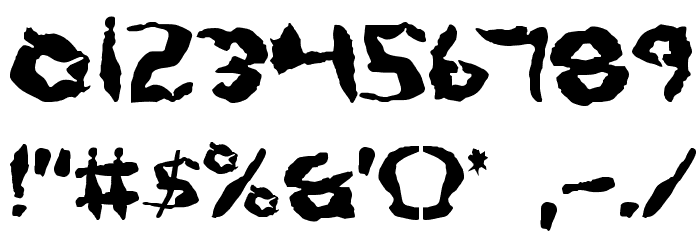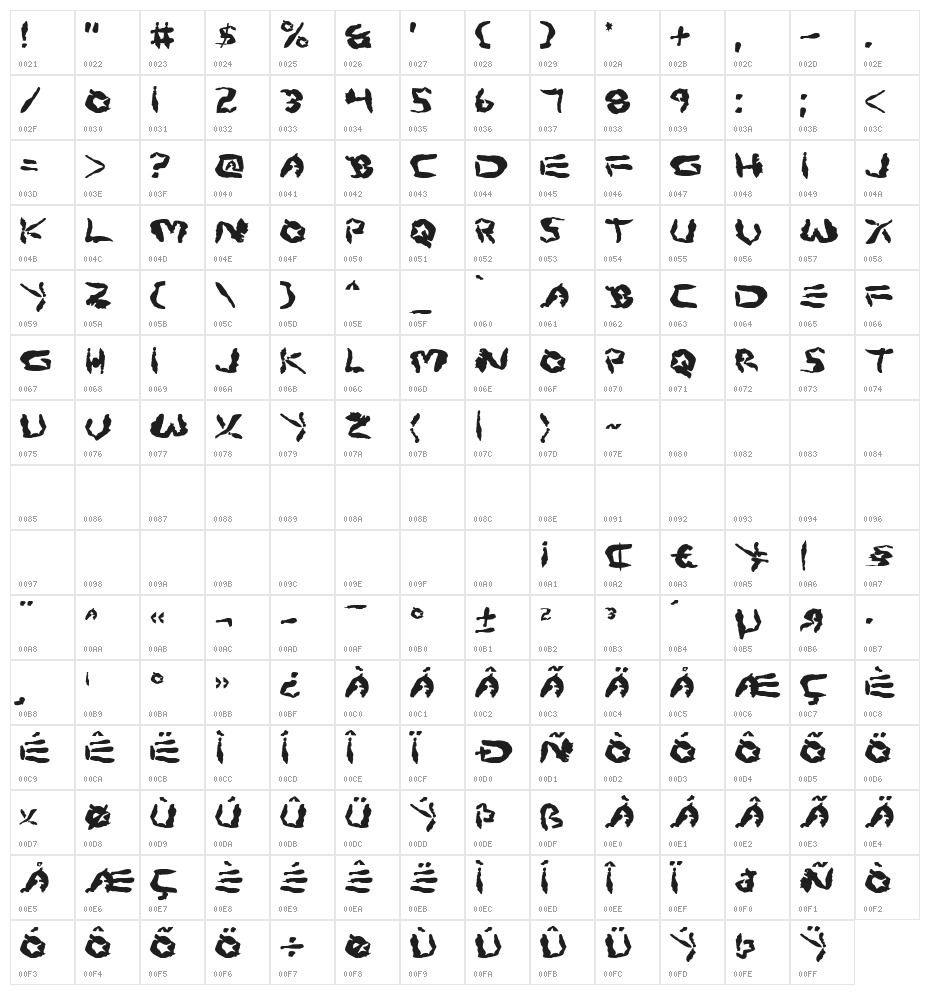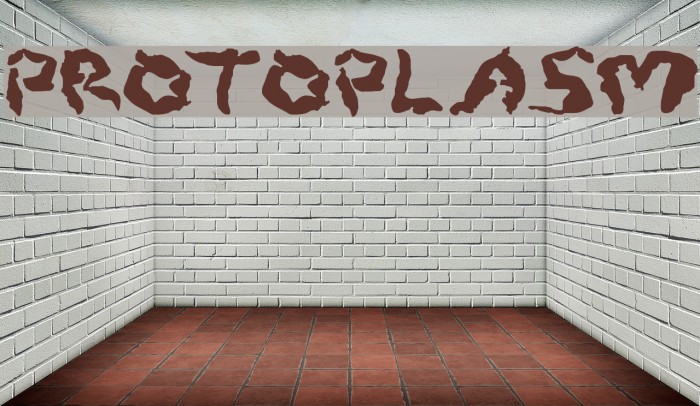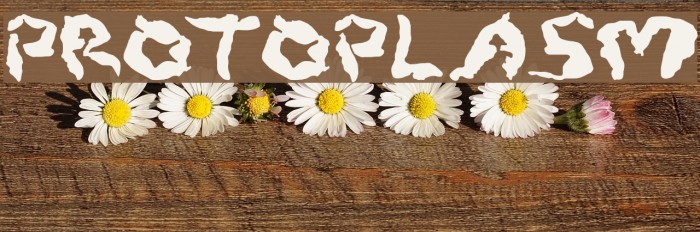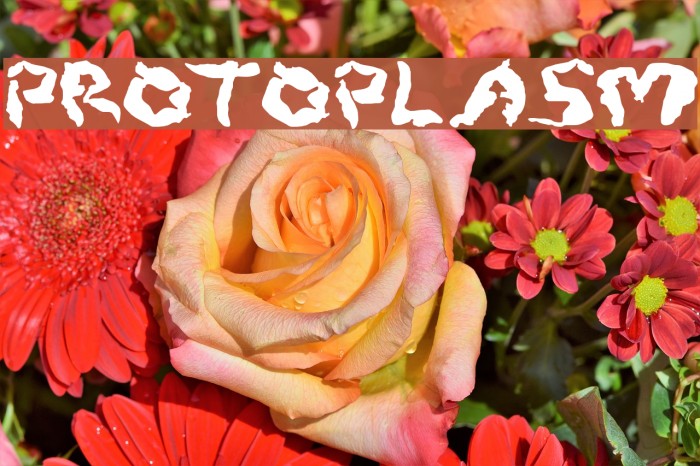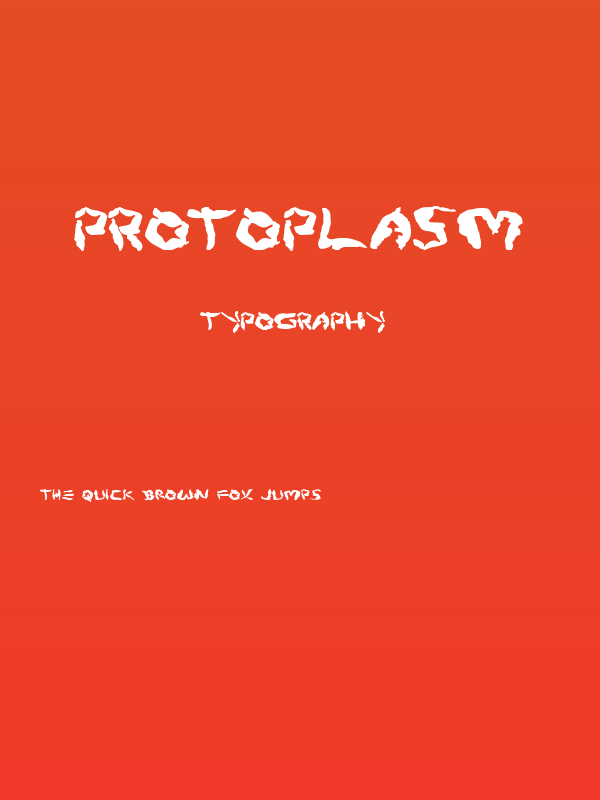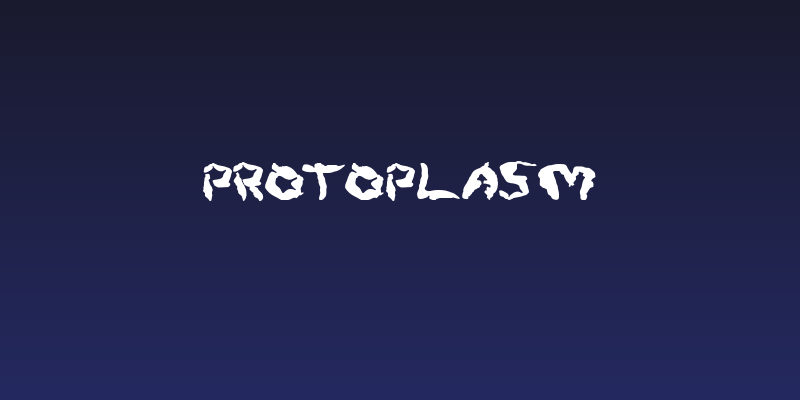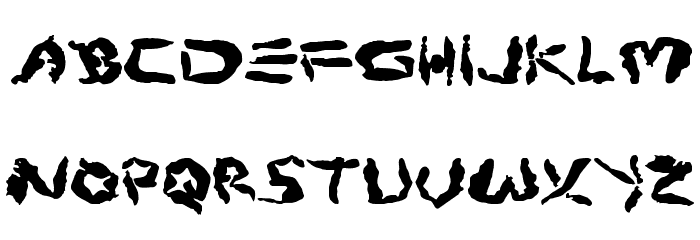
Protoplasm Font
Protoplasm Description
This font features a highly irregular and organic design, reminiscent of abstract art or natural formations. The characters are bold and have a rough, textured appearance, giving them a dynamic and energetic feel. The strokes vary in thickness, creating a sense of movement and fluidity. This font is visually striking and commands attention, making it ideal for creative and unconventional projects. The unique style of each letter adds a sense of individuality and artistic flair, making it suitable for designs that aim to stand out and make a bold statement.
| Proposed Projects | Ideal for album covers, posters, artistic branding, and creative advertising. |